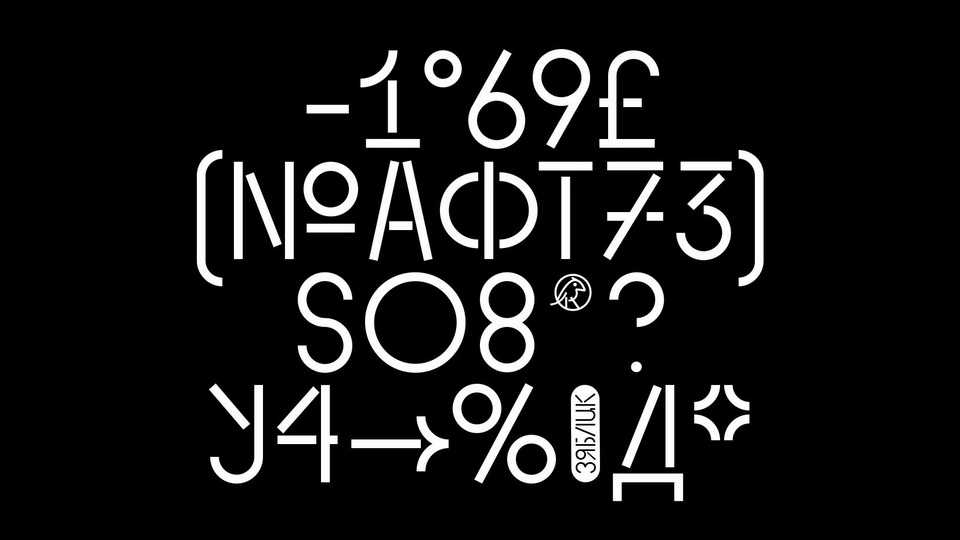
Download Zyablik font, a creative modular display typeface with a strong personality. Zyablik is perfect for posters, headlines, short texts, branding and other display use.
Designer: Ivan Pivovarov